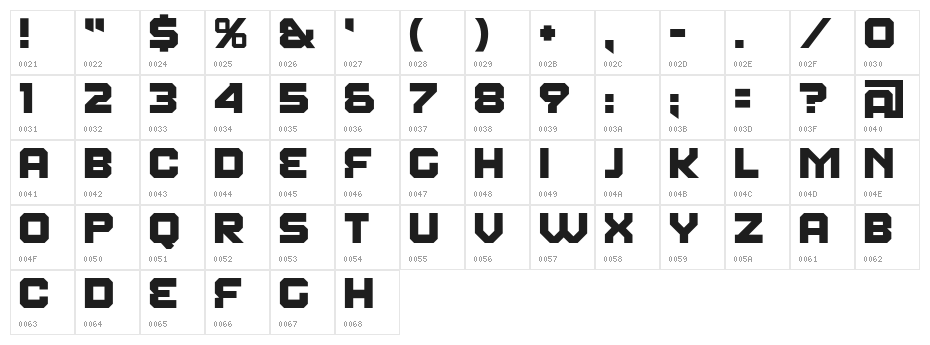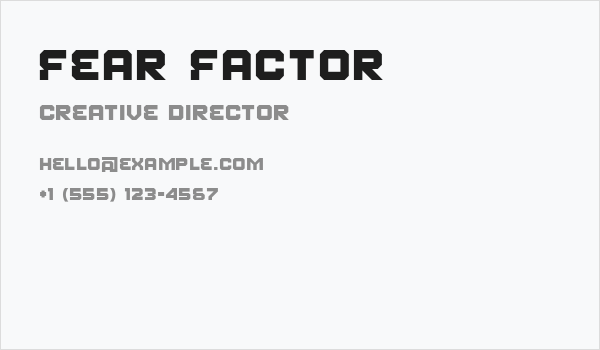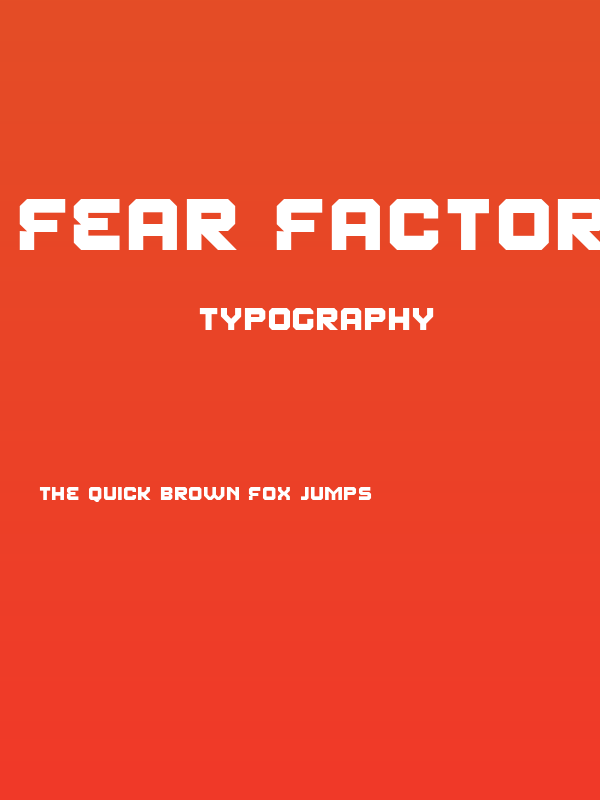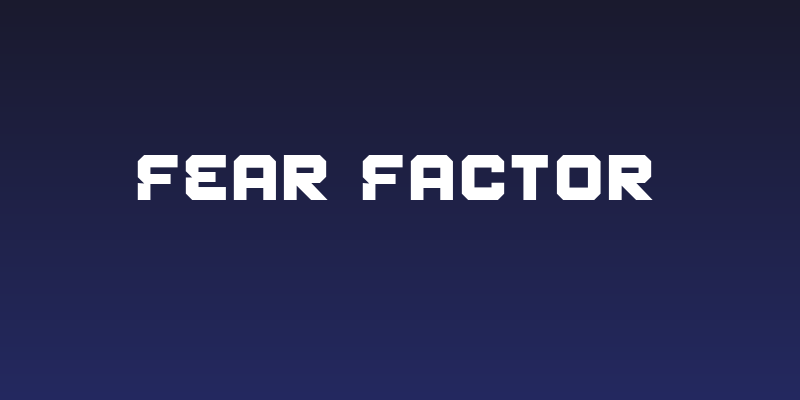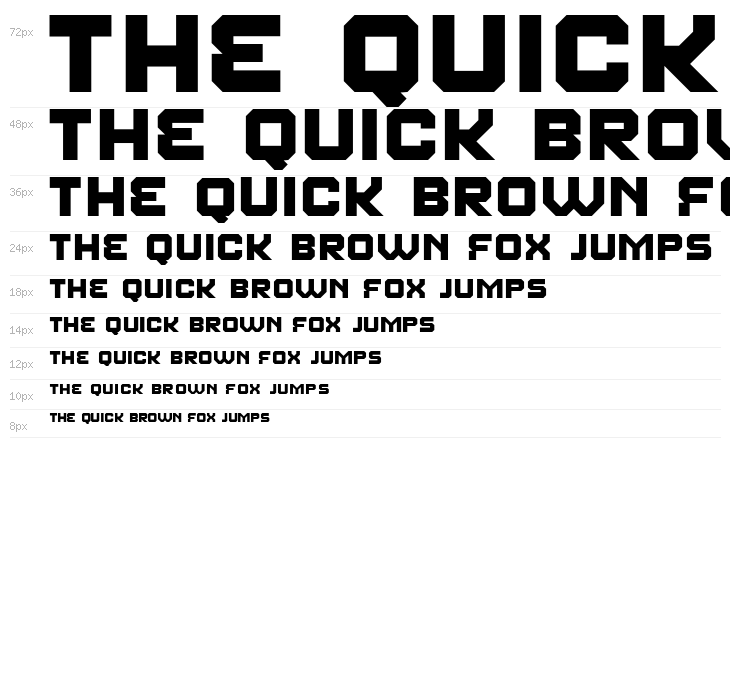
Fear Factor Font
Fear Factor Description
This font features a bold, geometric design with sharp, angular edges that convey a sense of strength and modernity. The characters are uniformly thick, creating a consistent and impactful appearance. The uppercase letters are particularly striking, with a block-like structure that enhances readability while maintaining a distinctive style. The numbers and special characters follow the same design principles, ensuring a cohesive look across all elements. This font's boldness and geometric nature make it ideal for projects that require a strong visual presence.
| Proposed Projects | Ideal for branding, posters, headlines, and any design requiring a strong, modern look. |